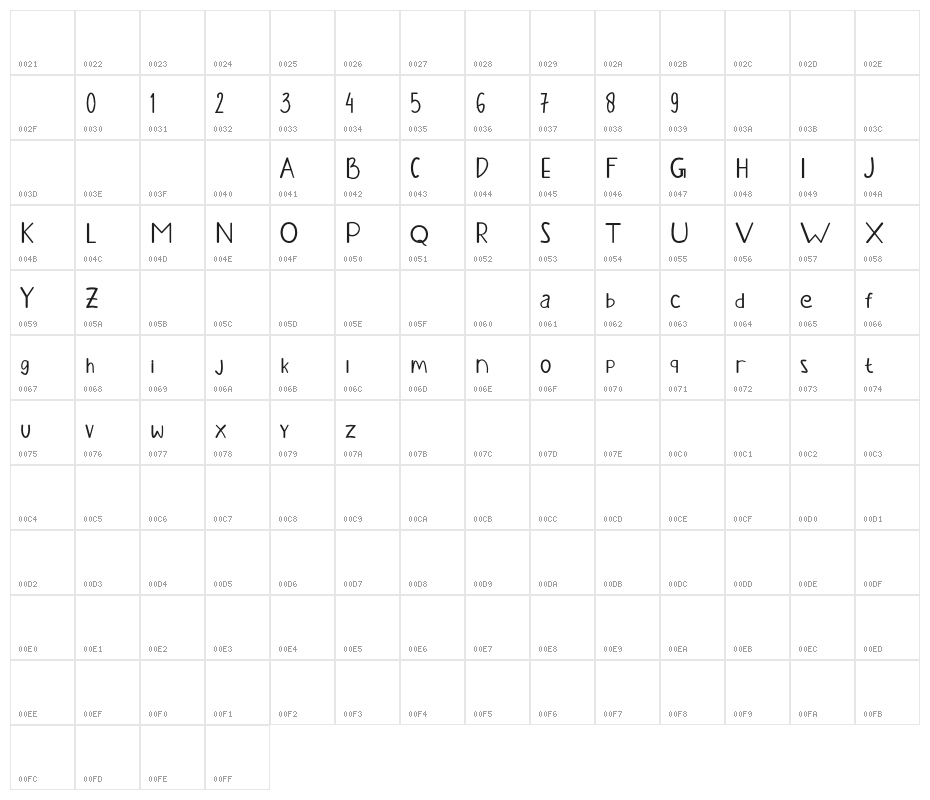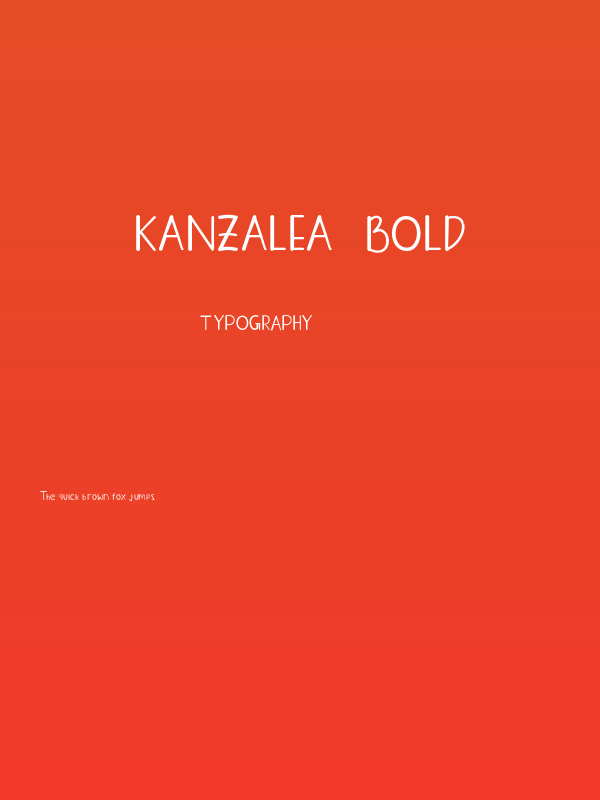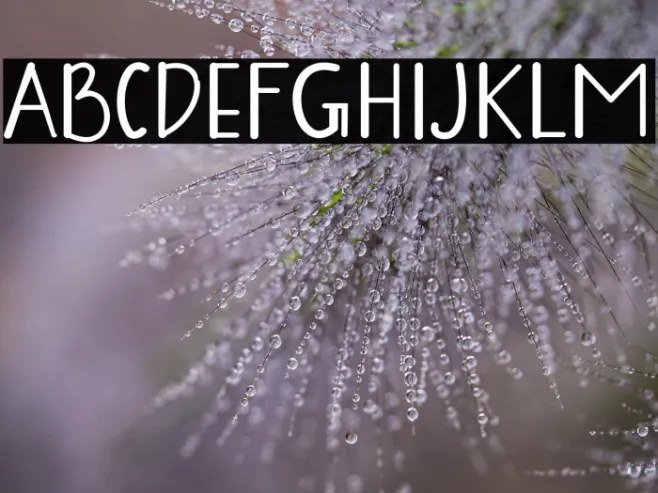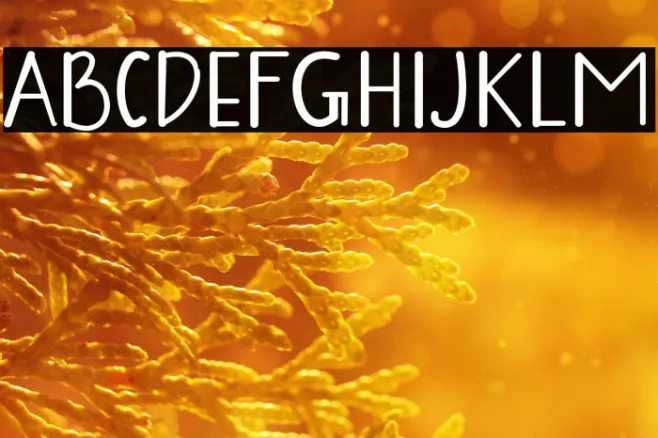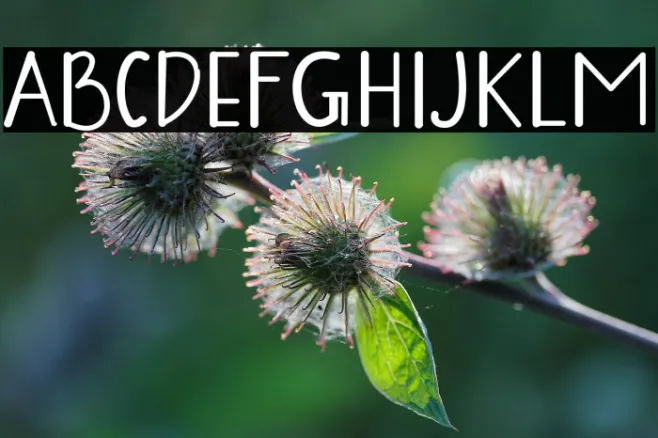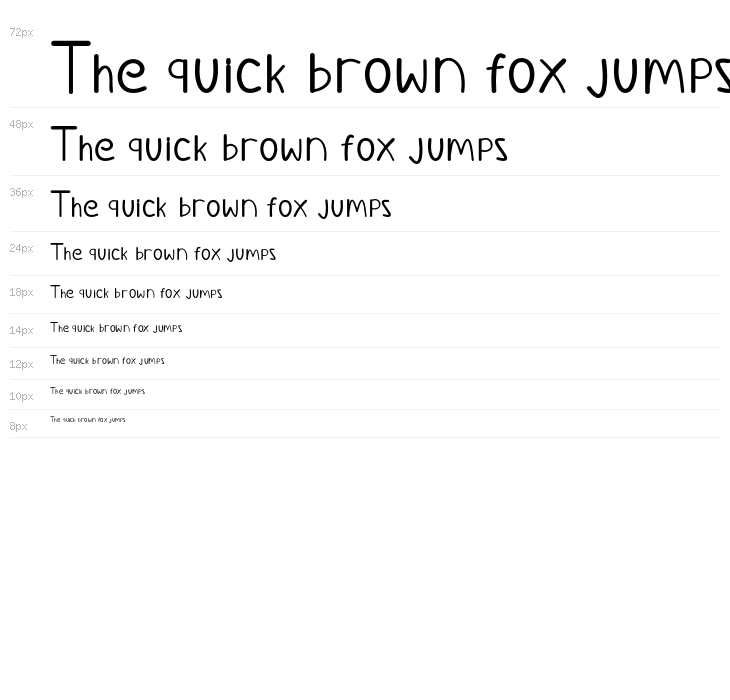
KANZALEA-Bold Font
KANZALEA-Bold Description
This font features a playful and rounded design, characterized by its smooth curves and friendly appearance. The letters have a consistent stroke width, giving them a uniform look that is both approachable and modern. The uppercase letters are slightly taller than the lowercase, adding a touch of elegance. The numerals are clear and easy to read, maintaining the same rounded style. This font's simplicity and charm make it versatile for various design needs.
| Use Case | Headlines, Logos, Social Media |
| Proposed Projects | Ideal for children's books, playful branding, casual invitations, and social media graphics. |